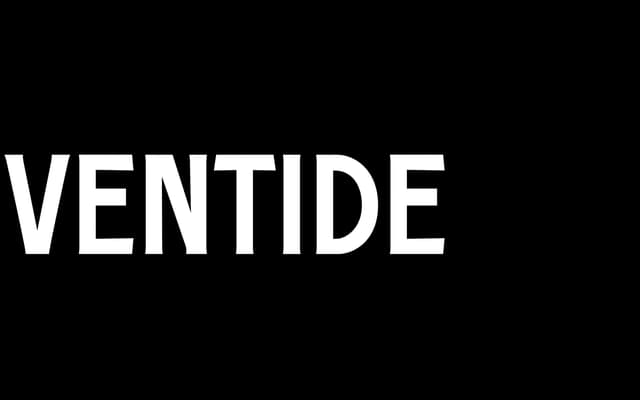
A two-weight display face that merges Art Deco geometry with the hand-painted quality of sign painting traditions.
Drawing on the geometric rigour of Art Deco alongside the craft sensibility of sign painting, Eventide is offered in Light and Regular weights as a bundled pair. The combination of historical reference points gives it a period character suited to editorial headlines, branding and packaging where a decorative yet structured letterform is needed.
Described explicitly as a display typeface drawing on Art Deco forms and sign painting traditions, placing it firmly in the display category with an art deco subcategory.